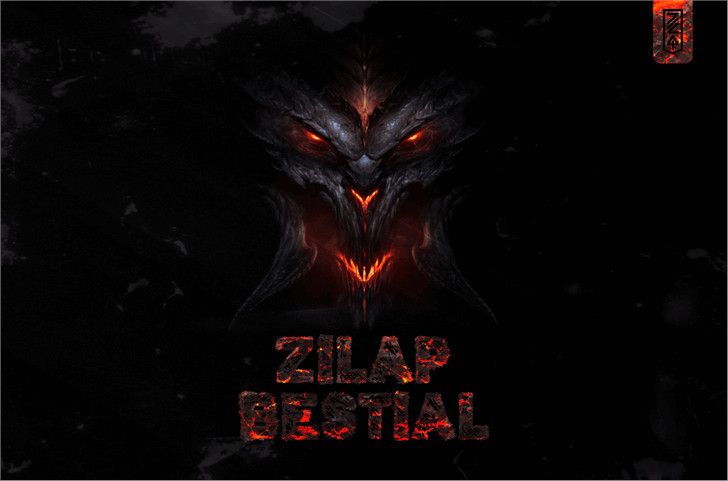
Zilap Bestial Font
Design and illustration of Typefaces Digital Specialist source solutions for businesses, events, urban and cultural.
Urban design and cultural custom fonts. Juan Navarro designer and specializes in geometric, futuristic cultural and Illustrator.
We look for creative design inspired by urban and futuristic, to a non-traditional sources to make a difference and propose our work style to others labels in the world concept.